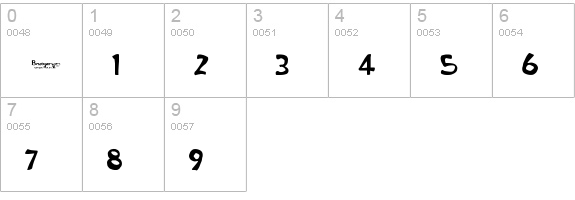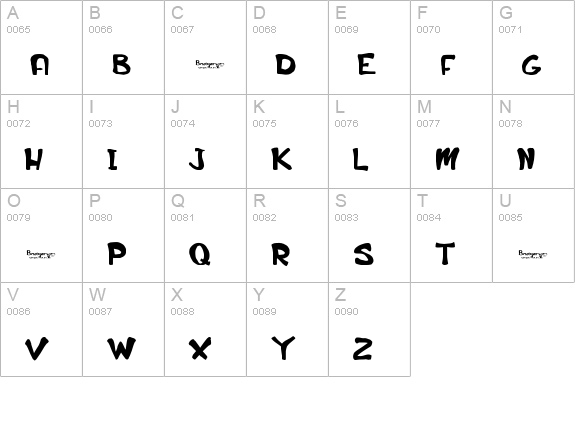
Badgery Font Details
Badgery font is a modern and stylish typeface designed to make your designs stand out. With its clean lines and unique character shapes, Badgery font is perfect for a wide range of projects, from branding to web design. This versatile font is available for free download at FontsMarket.com, making it accessible to everyone looking to add a touch of sophistication to their work. Whether you're creating a logo, poster, or website, Badgery font is sure to make a lasting impression. Get your hands on this free font today and elevate your designs to the next level.